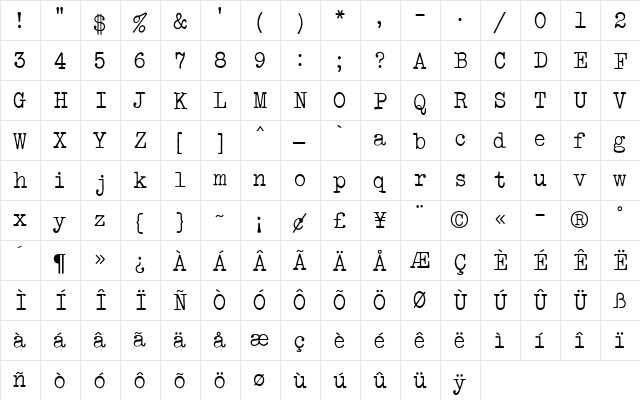
Bulletin Typewriter MN Regular
Design Context for Bulletin Typewriter MN Typeface
Bulletin Typewriter MN brings the precise, column-aligned rhythm of monospaced typography to designs that value technical clarity and systematic order.
A natural fit for code editors, technical documentation, developer-focused branding, and terminal-inspired UI.